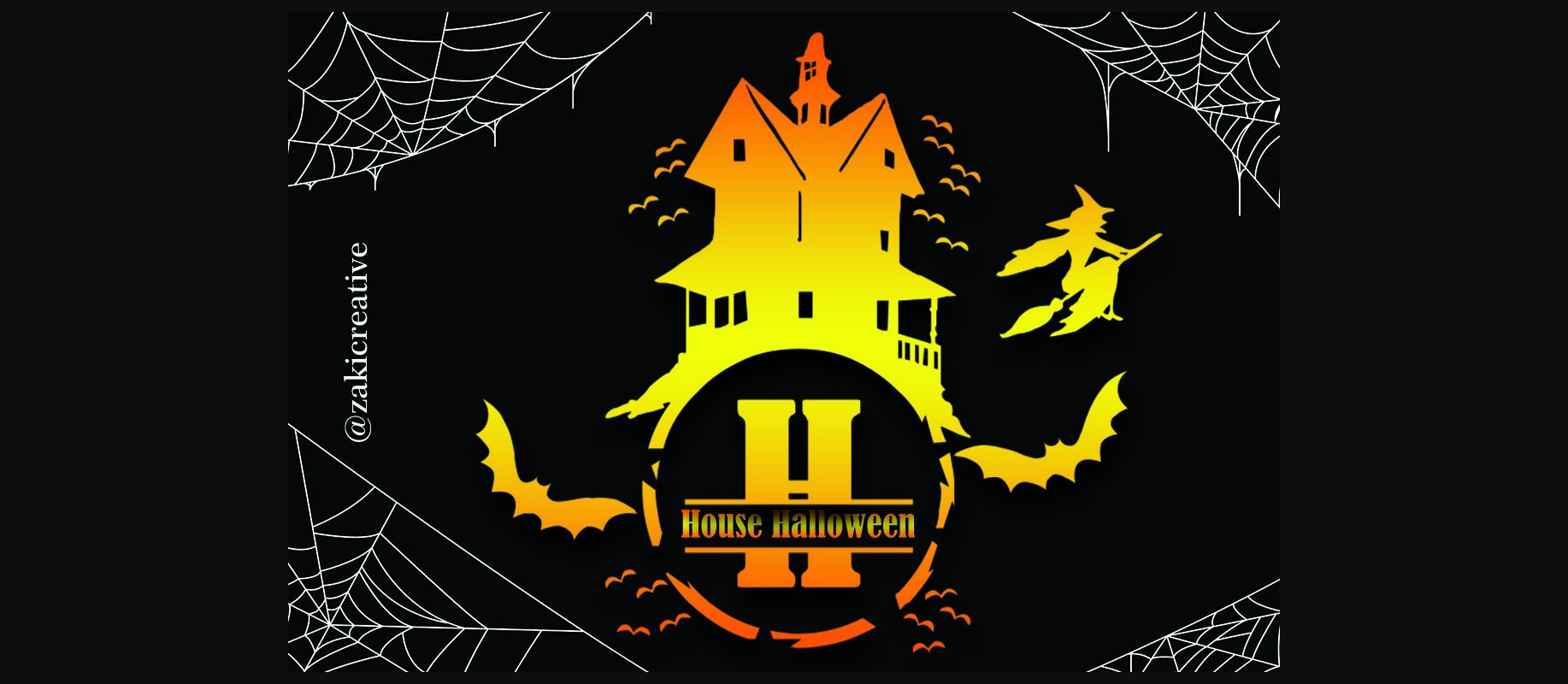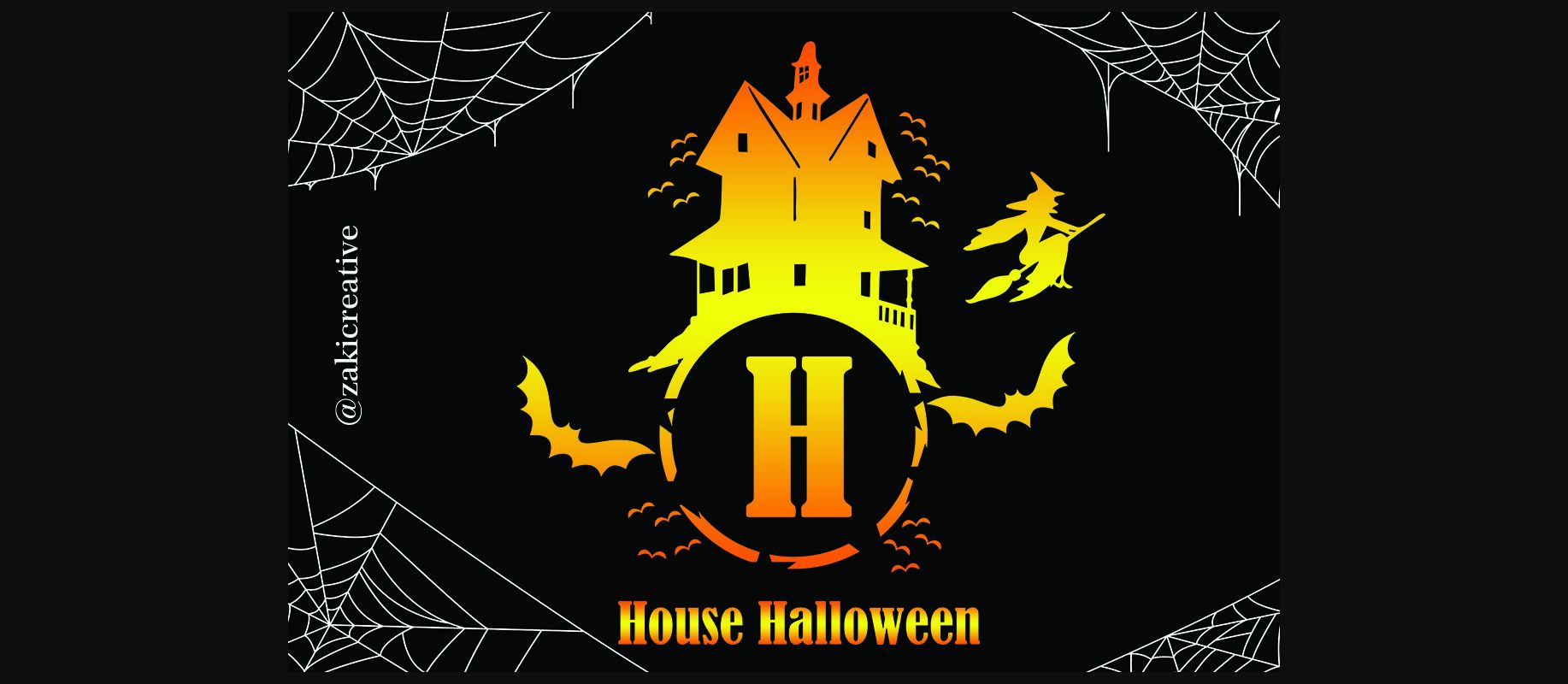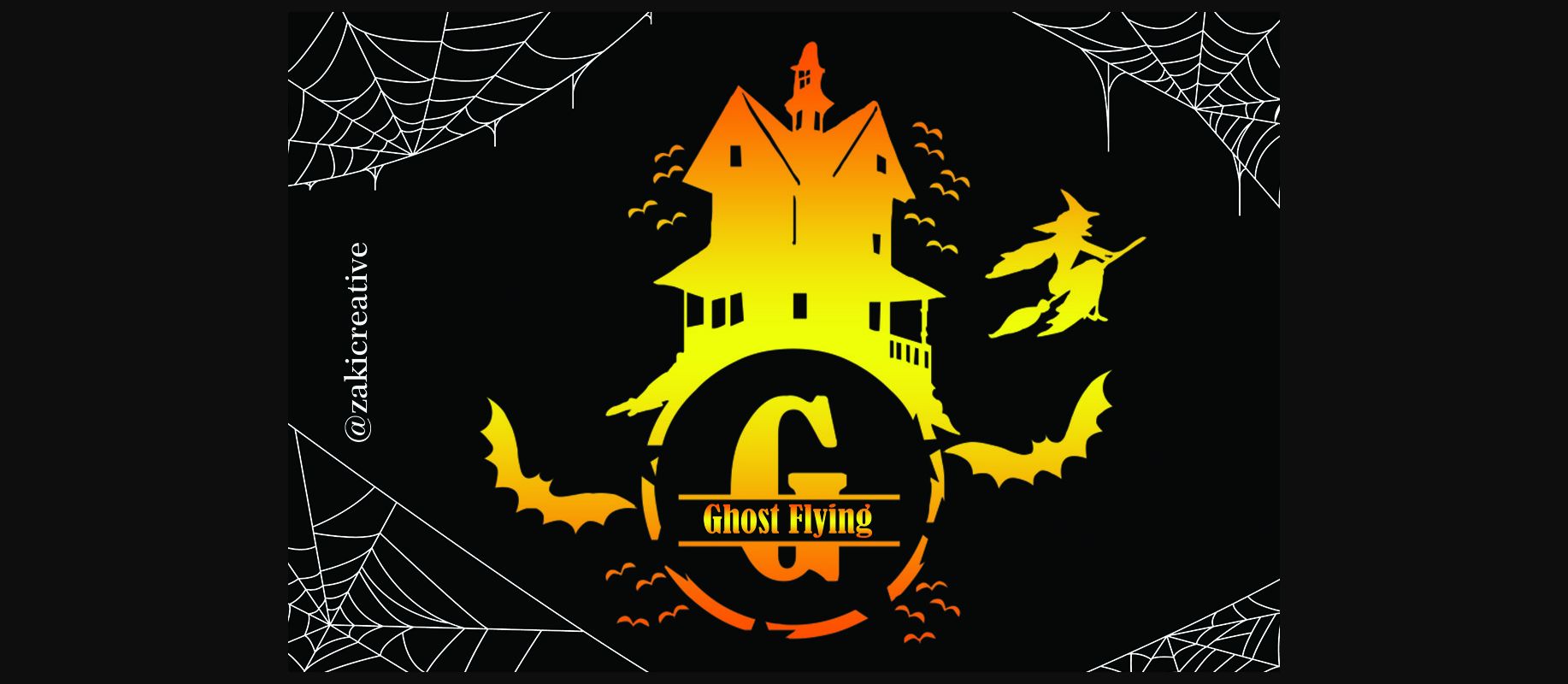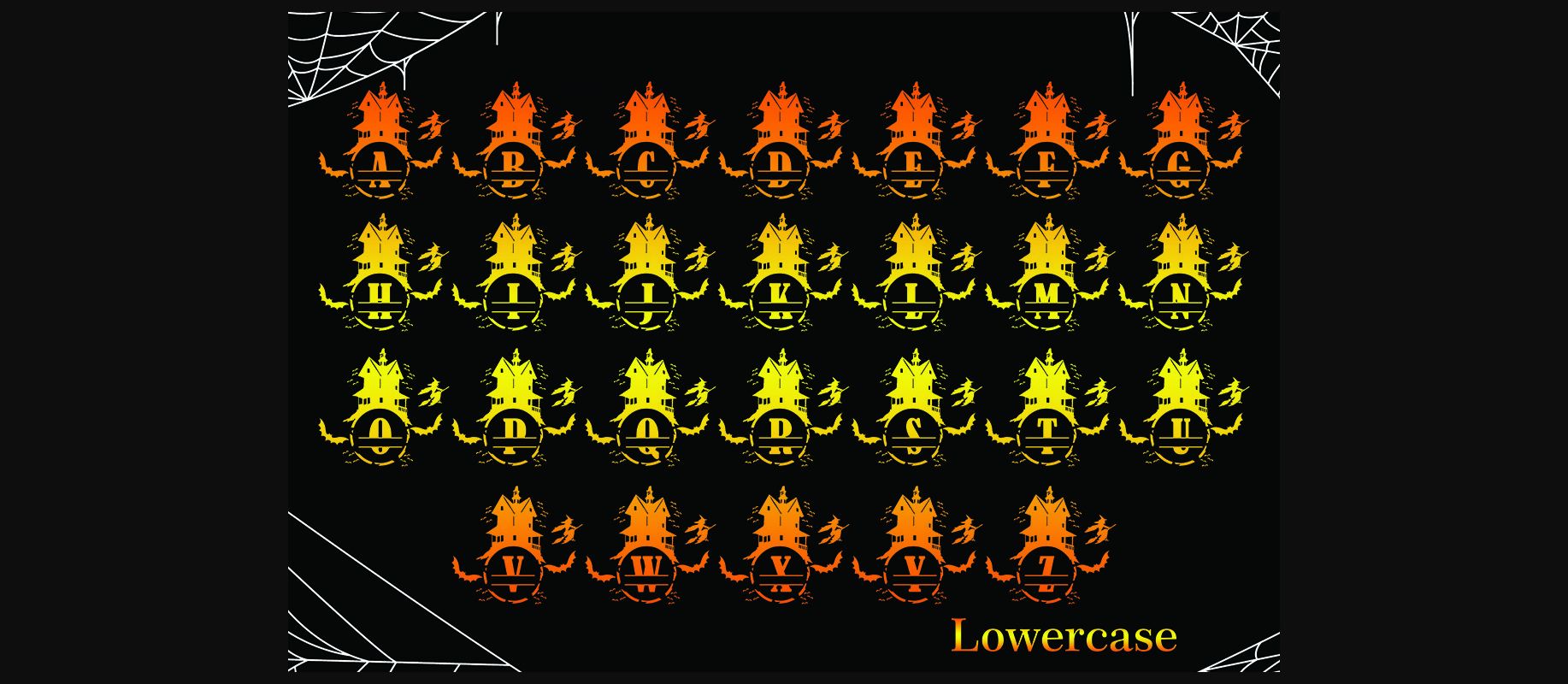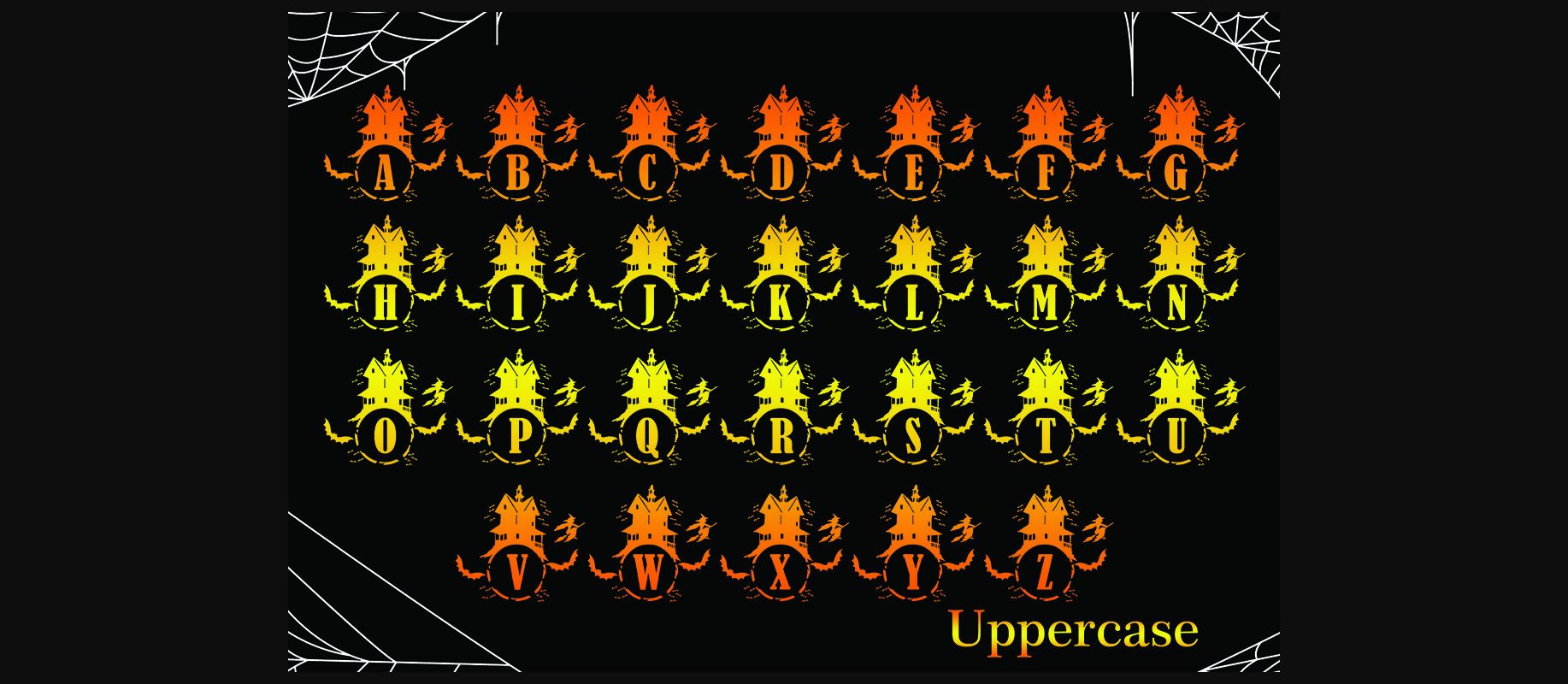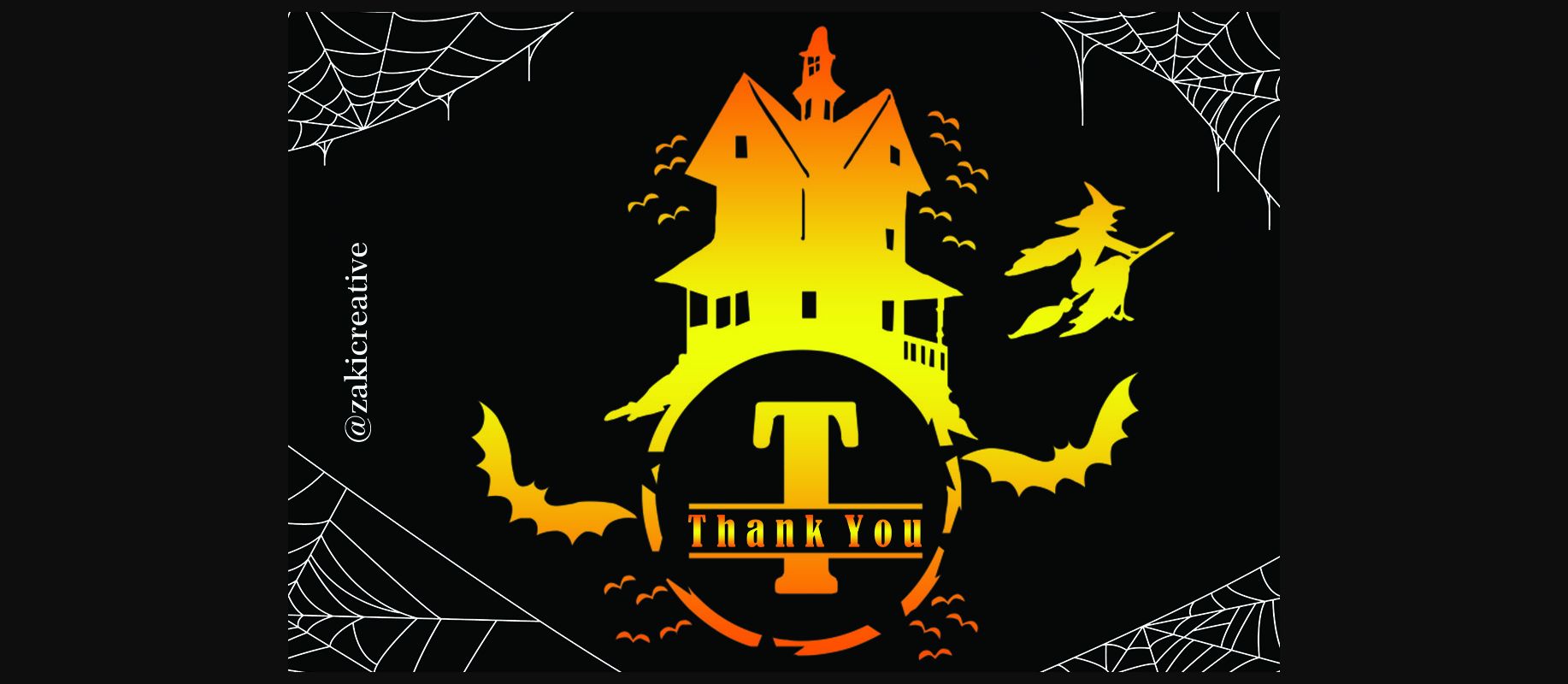
House Halloween Monogram Font
About House Halloween Monogram Font
House Halloween is a spooky and highly detailed decorative font. Get inspired by its incredibly fun feel and use it to create creepy designs.